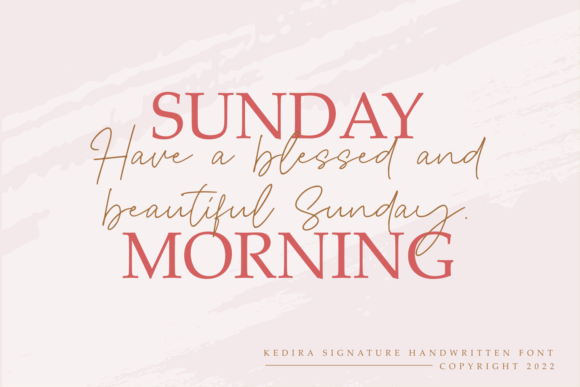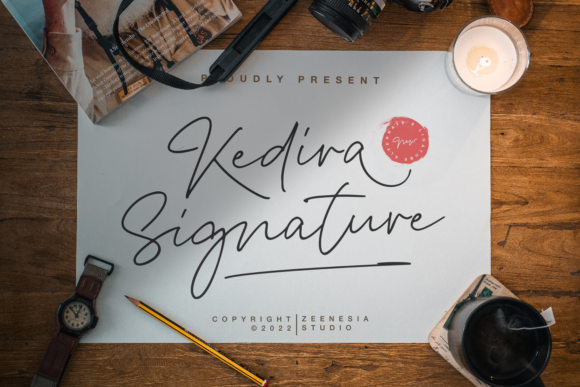
Kedira Signature Font
db-ku.com - Script & Handwritten -- Kedira Signature is a thin lettered and delicate script font. This font is PUA encoded which means you can access all glyphs and swashes with ease!